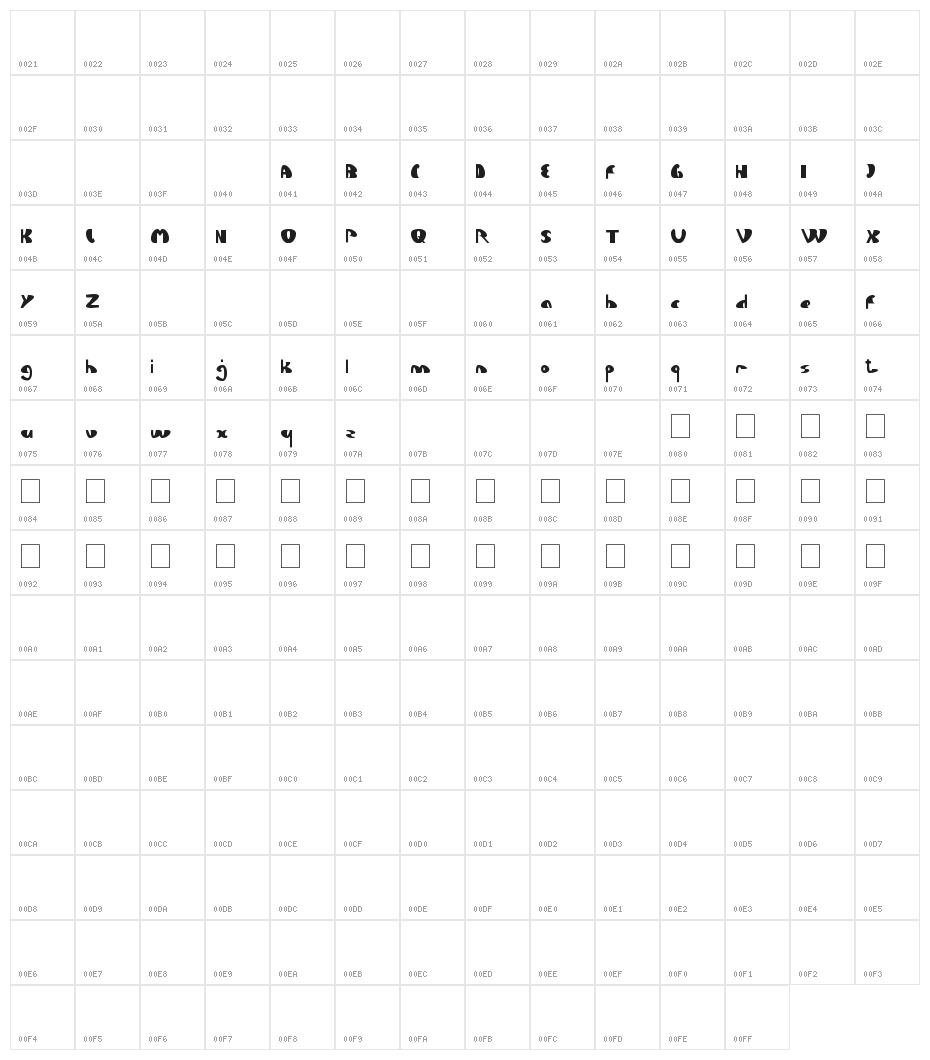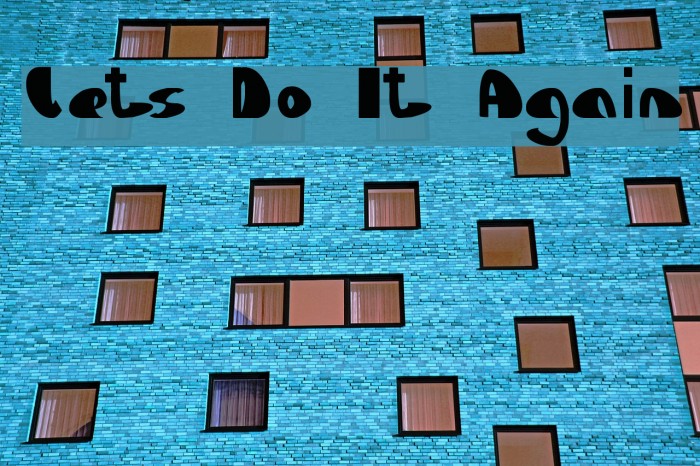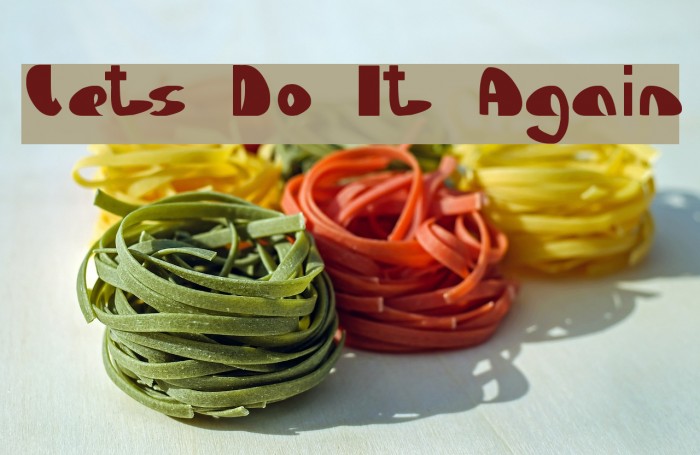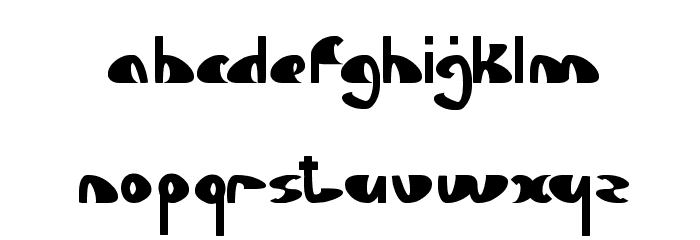
Lets Do It Again Font
Lets Do It Again Description
This font features a bold and playful design with a unique, artistic flair. The characters are crafted with a combination of thick and thin strokes, creating a dynamic and eye-catching appearance. The uppercase letters have a strong presence, with rounded edges and a slightly condensed form, while the lowercase letters maintain a whimsical and flowing style. The overall look is both modern and decorative, making it suitable for creative projects. The font's distinctive style is further enhanced by its varied character widths and high contrast in stroke thickness, adding to its visual interest.